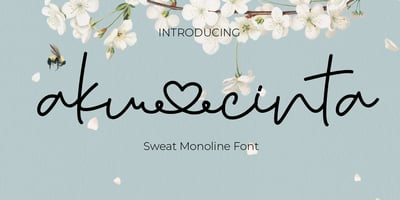
Aku Cinta Font Family was designed by Mohamad Candirah and published by MC Creative. Aku Cinta contains 1 styles and family package options. Aku Cinta is monoline script font which natural movement and romance style.is perfect for branding projects, logo, wedding designs, social media posts, advertisements, product packaging, product designs, label, photography, watermark, invitation, stationery and any projects that need handwriting taste.What’s Included : Standard glyphs Ligature Works on PC & Mac Simple installations Accessible in the Adobe Illustrator, Adobe Photoshop, Adobe InDesign, even work on Microsoft Word. PUA Encoded Characters – Fully accessible without additional design software. Fonts include multilingual support for; ä ö ü Ä Ö Ü ß ¿ ¡